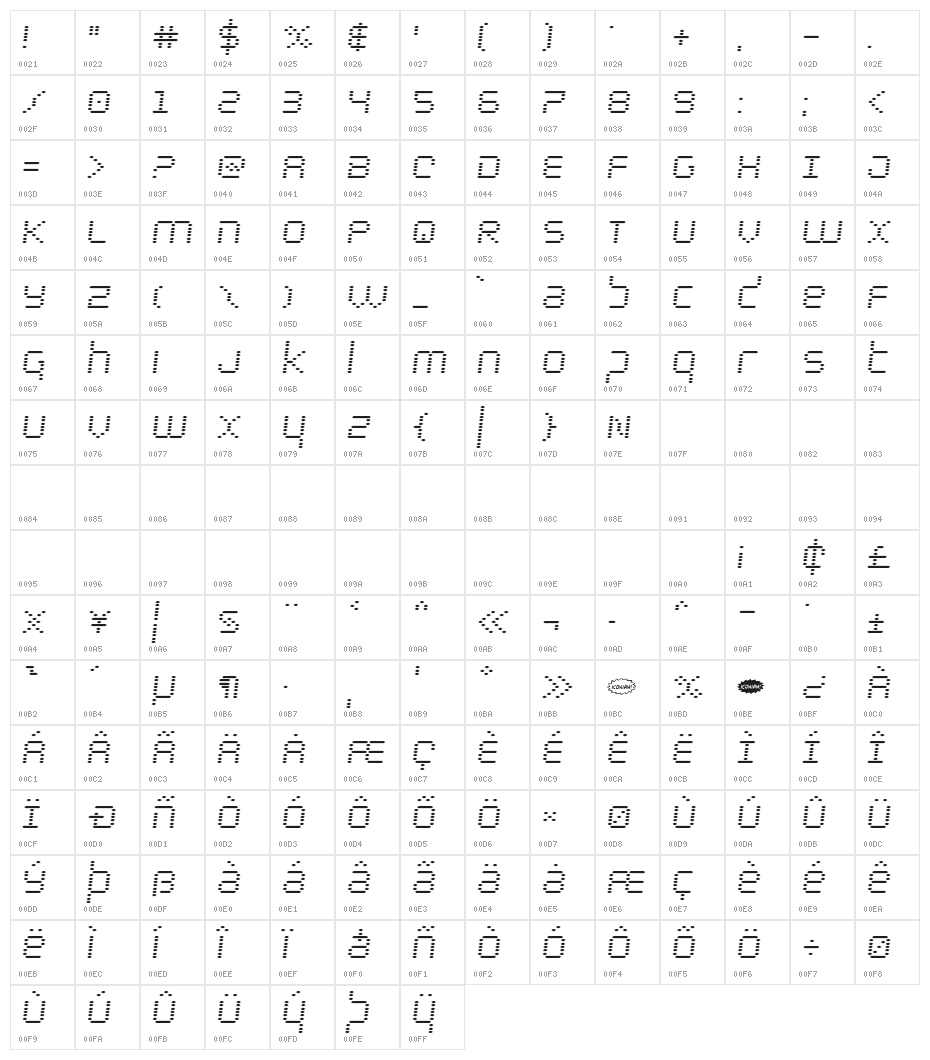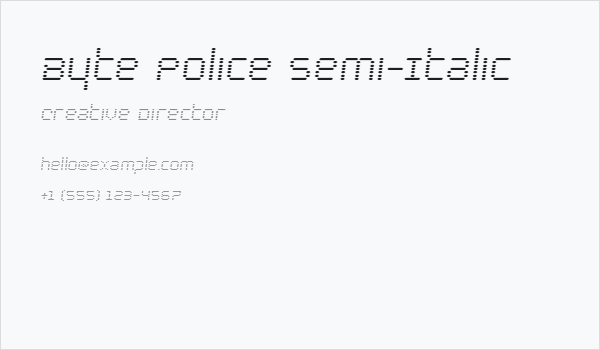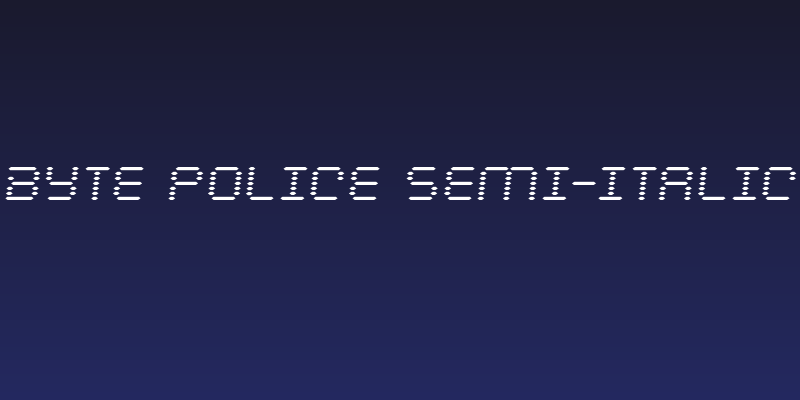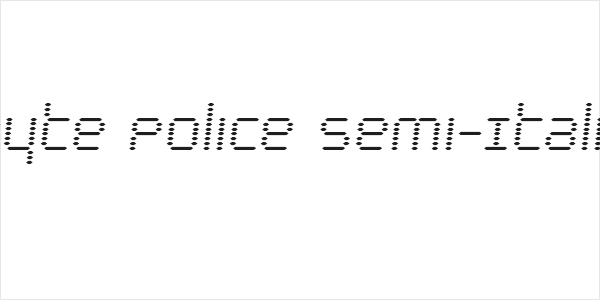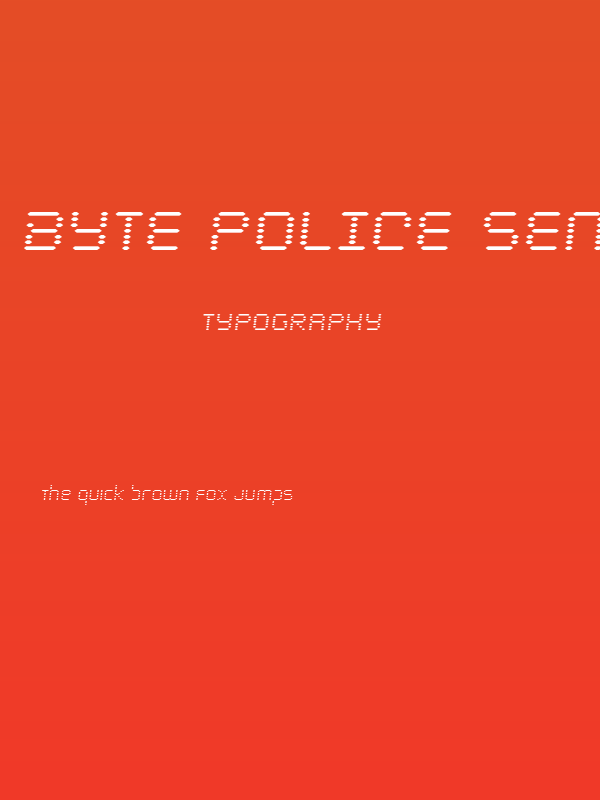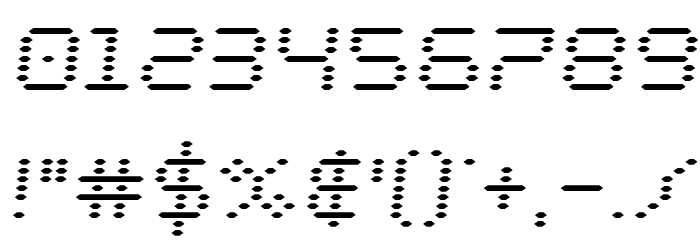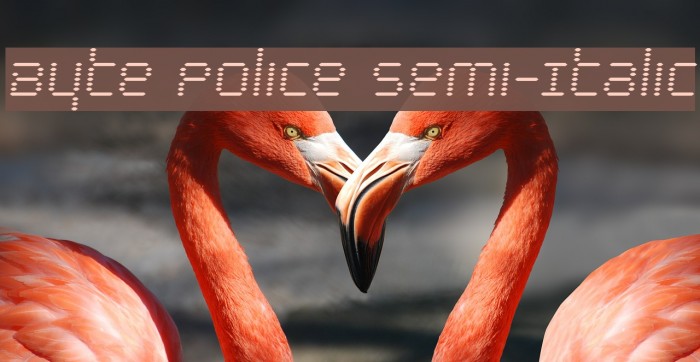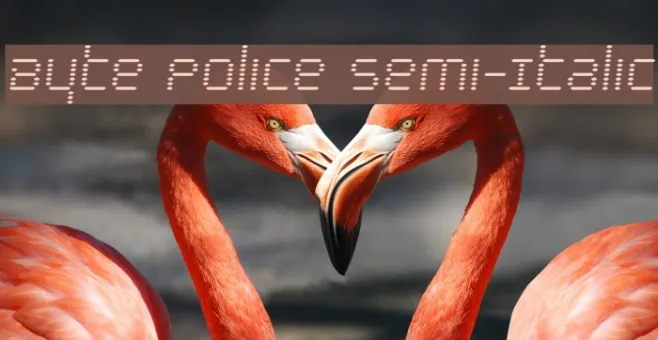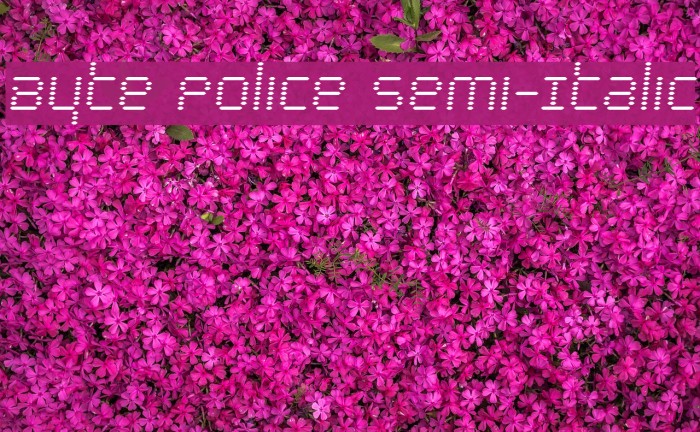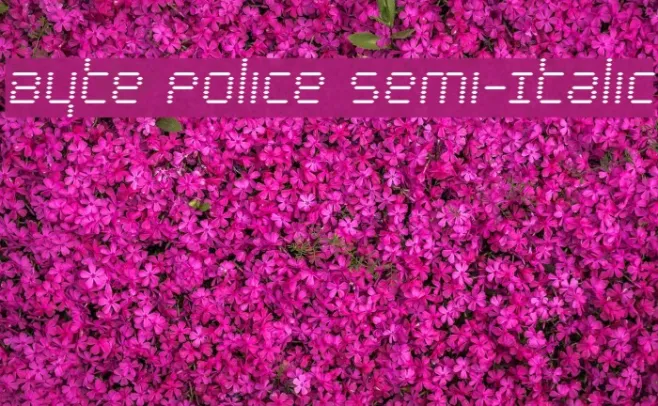
Byte Police Semi-Italic Font
Byte Police Semi-Italic Description
This font features a unique design composed of small, evenly spaced dots forming each character. The style is reminiscent of digital or electronic displays, giving it a modern and tech-inspired appearance. The characters are uniformly structured, maintaining a consistent height and width across both uppercase and lowercase letters. The numbers and special characters follow the same dotted pattern, ensuring a cohesive look throughout. This font's distinct style makes it stand out, ideal for projects that require a futuristic or digital aesthetic.
| Proposed Projects | Ideal for digital displays, tech-themed posters, futuristic branding, and electronic device interfaces. |